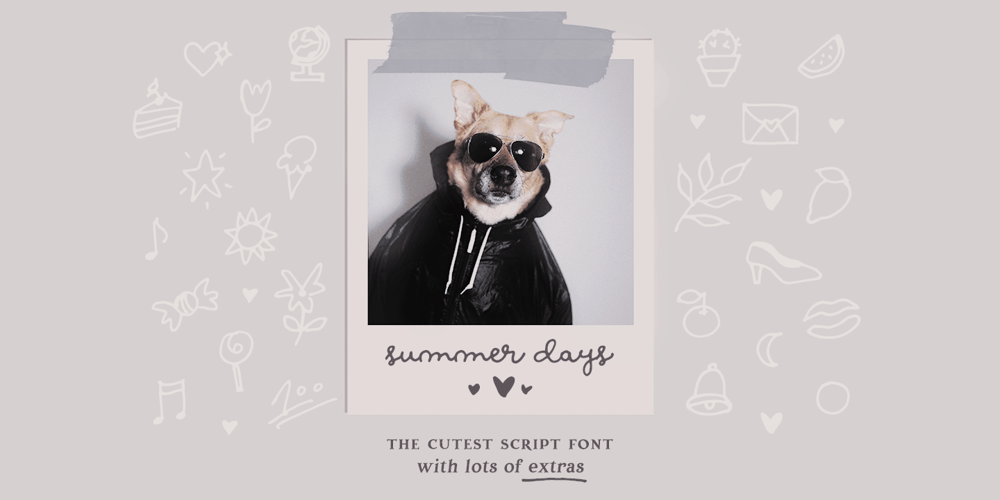
Summer Days
Summer Days font
Summer Days Font Family was designed by Ana Parracho and published by Ana’s Fonts. Summer Days contains 5 styles and family package options. Summer Days is a cute handwritten script font with ornaments and swashes, perfect for any design that needs an adorable handmade feel. Use this font family for signatures and logos, notes and quotes, social media posts, and branding and packaging.This set includes: 1 script font in two styles: regular and slant, with ligatues for a smooth handwritten font. 1 ornaments font, with 72 cute handmade drawings (fruits, animals, sweets, plants, etc) in two styles: regular and blackout, for easy layering. 1 swashes font, with lots of swirls and underlines.